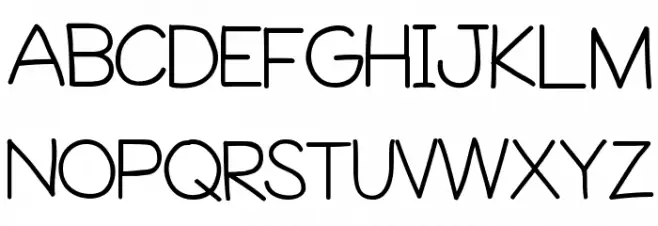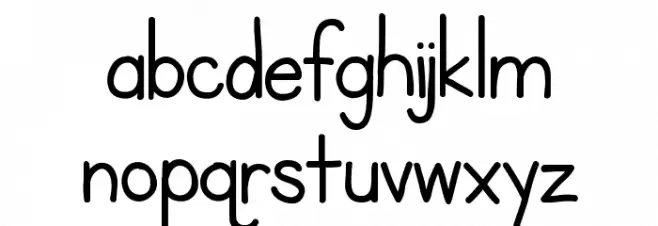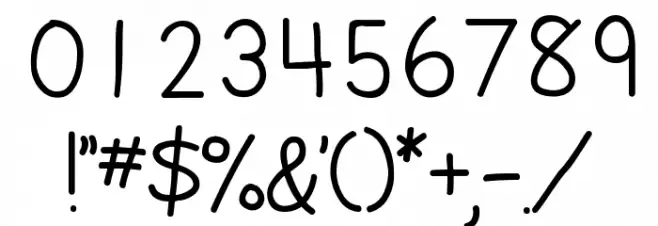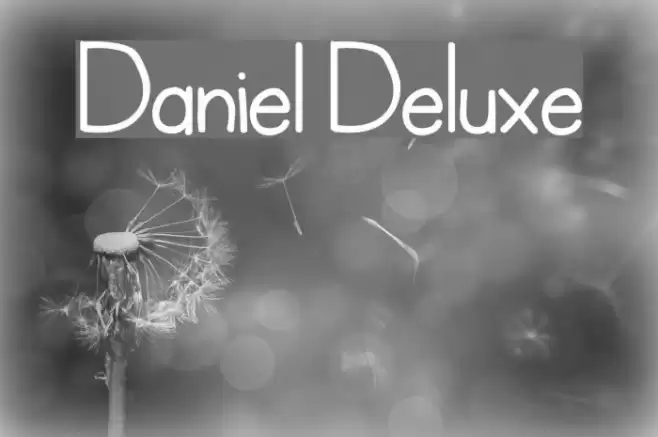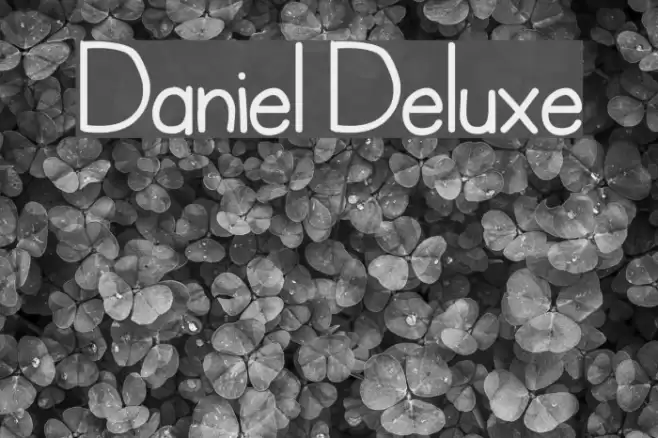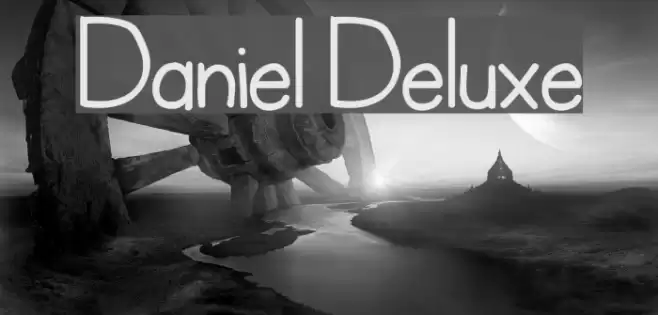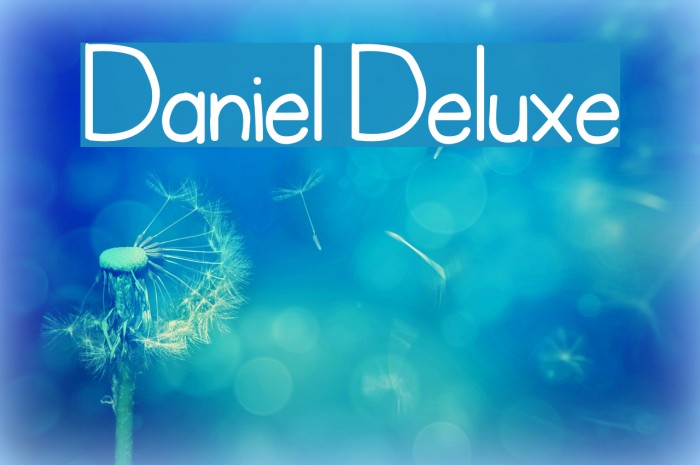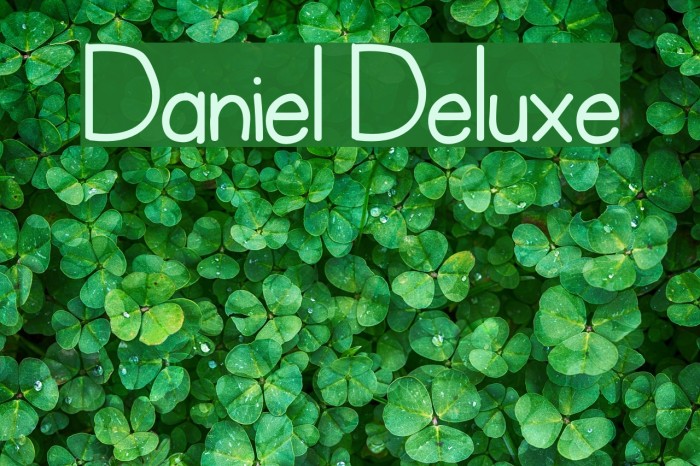
Daniel Deluxe
This font features a playful and casual style with rounded edges and a handwritten feel. The uppercase letters are uniform in height, while the lowercase letters exhibit a slight variation, adding to the informal aesthetic. The numerals are consistent with the overall style, maintaining the rounded and approachable appearance. Special characters are clearly defined, complementing the font's friendly and accessible look. The overall design is simple yet effective, making it suitable for a variety of informal and creative applications.
A playful, rounded, and handwritten-style font.
- Proposed Projects: Ideal for children's books, casual invitations, greeting cards, and playful branding projects.
- Overall Style: Casual and playful
- Use Case: Headlines, Informal text, Creative projects